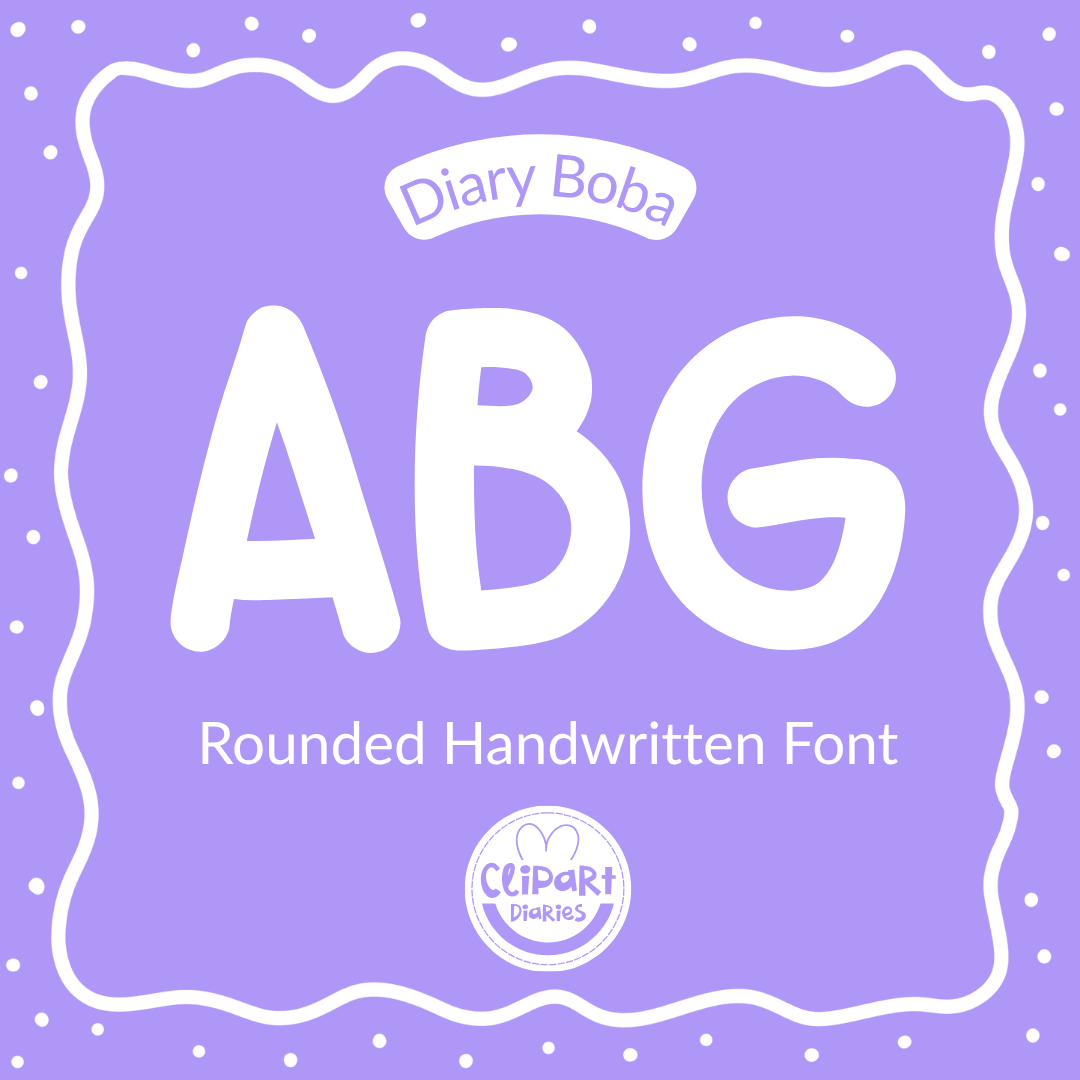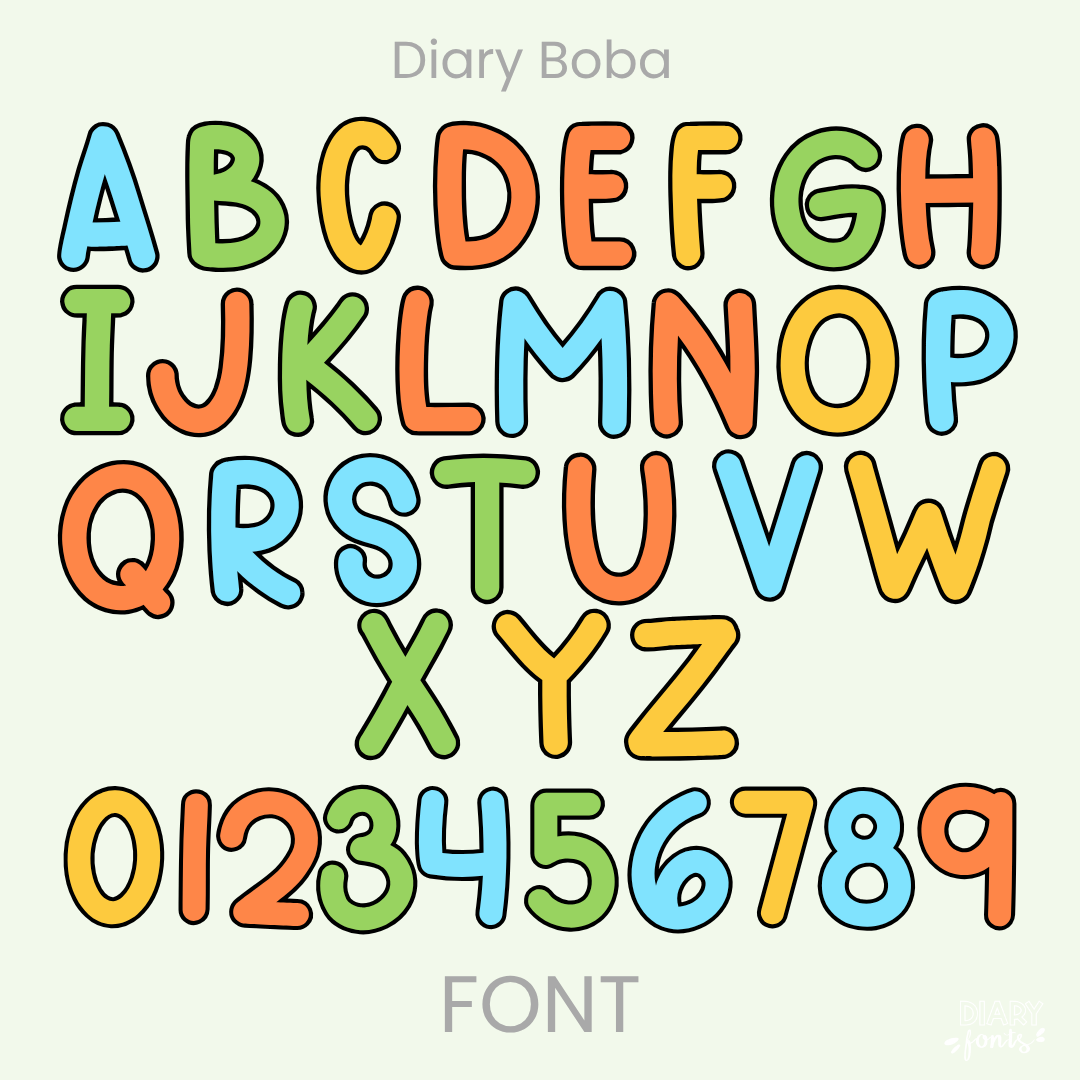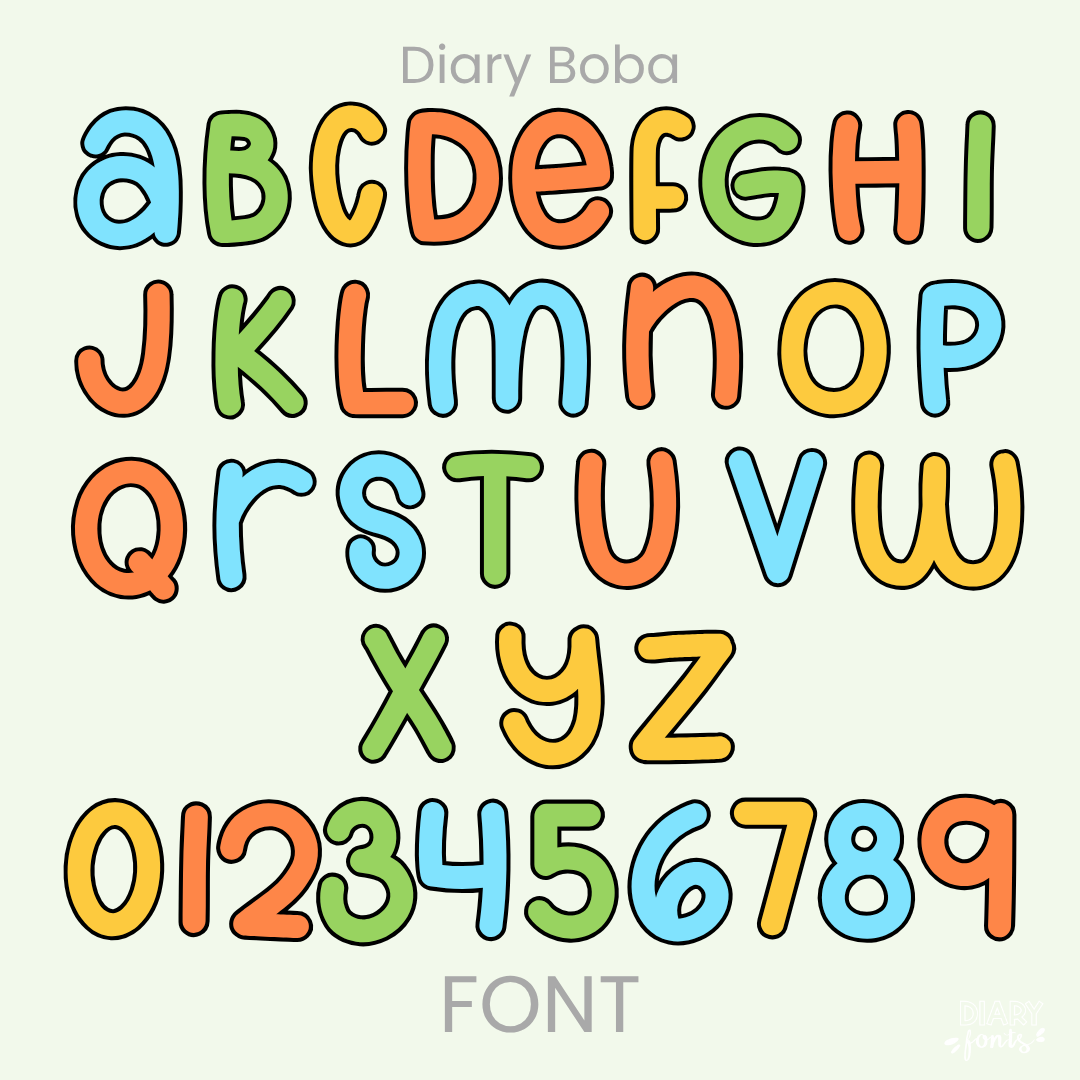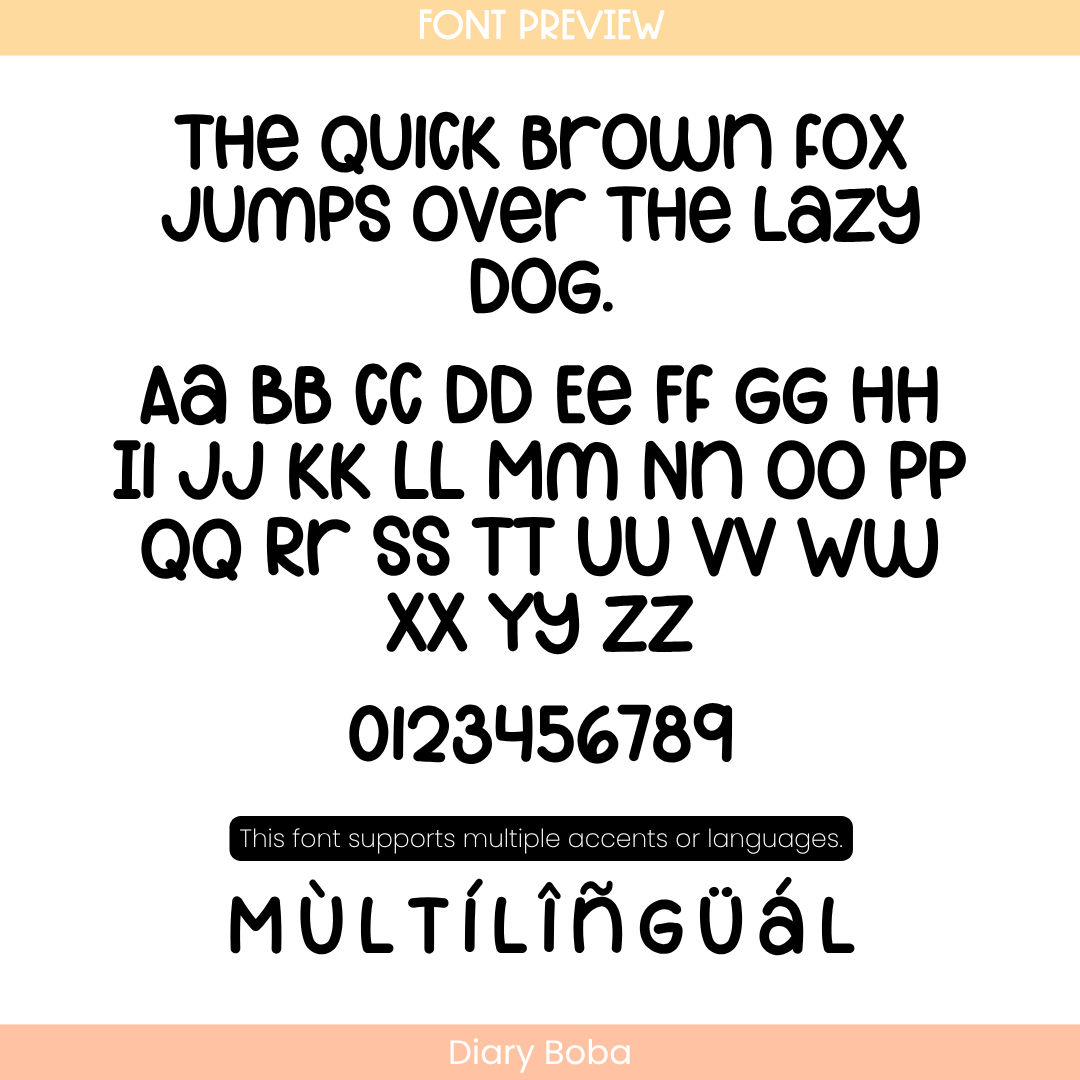
Add a touch of playfulness to your creative projects with Diary Boba, a rounded handwritten font that perfectly balances a quirky aesthetic with professional legibility. This versatile typeface features smooth, bubble-like letterforms, making it an excellent choice for eye-catching headers, primary classroom resources, and youth-oriented designs. It includes a complete set of uppercase and lowercase letters, numbers 0–9, and full multi-language support for various accents. Engineered for seamless compatibility, it works perfectly with Canva, MS Office, and Adobe Apps, as well as popular iPad tools like GoodNotes and Procreate. Whether you are creating whimsical classroom decor or aesthetic digital planners, Diary Boba offers a polished, hand-drawn look that is ideal for both personal and commercial use.
Diary Boba Font
The Diary Boba is a quirky, rounded handwritten font designed to add a fun and bubbly personality to your digital resources and classroom materials.